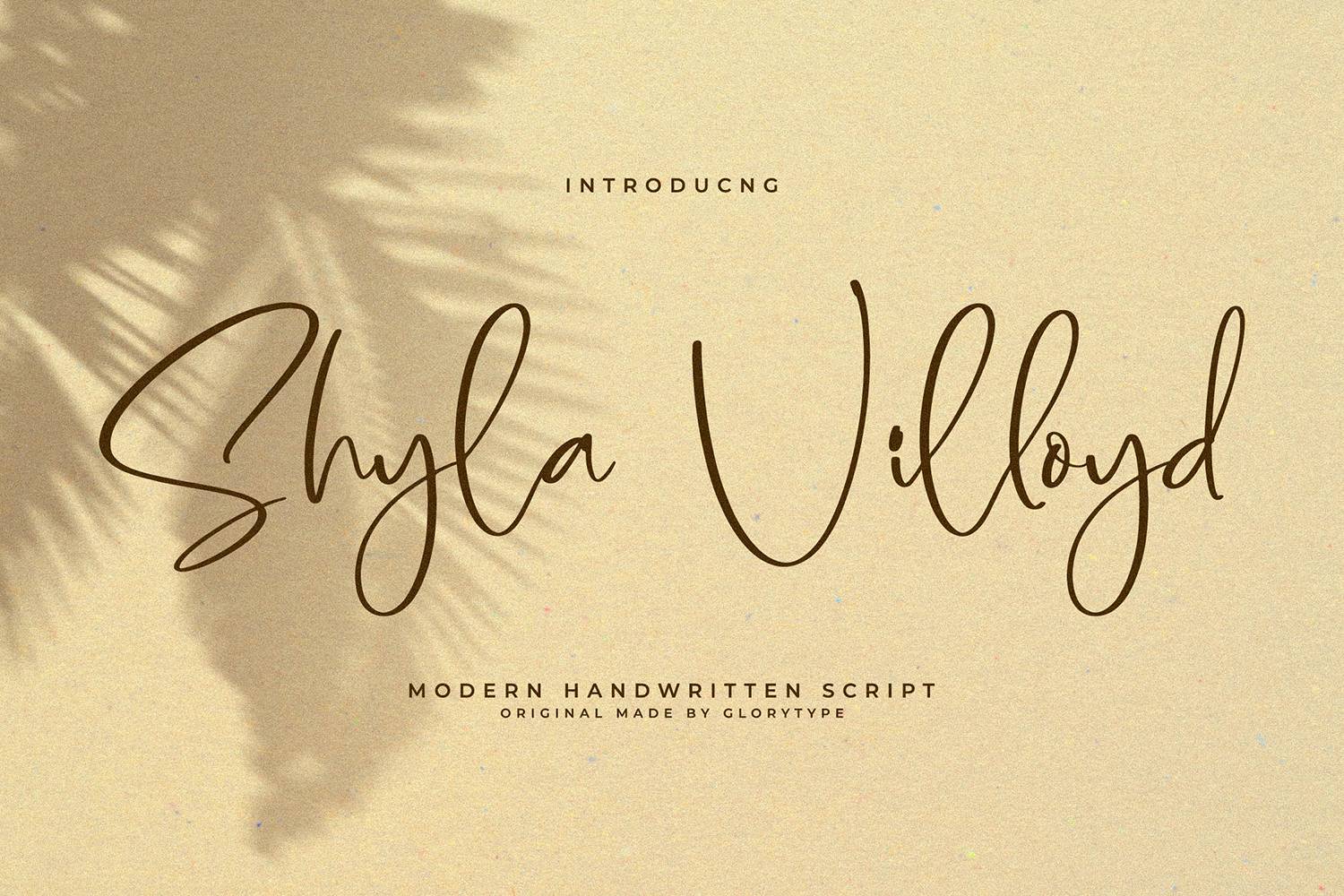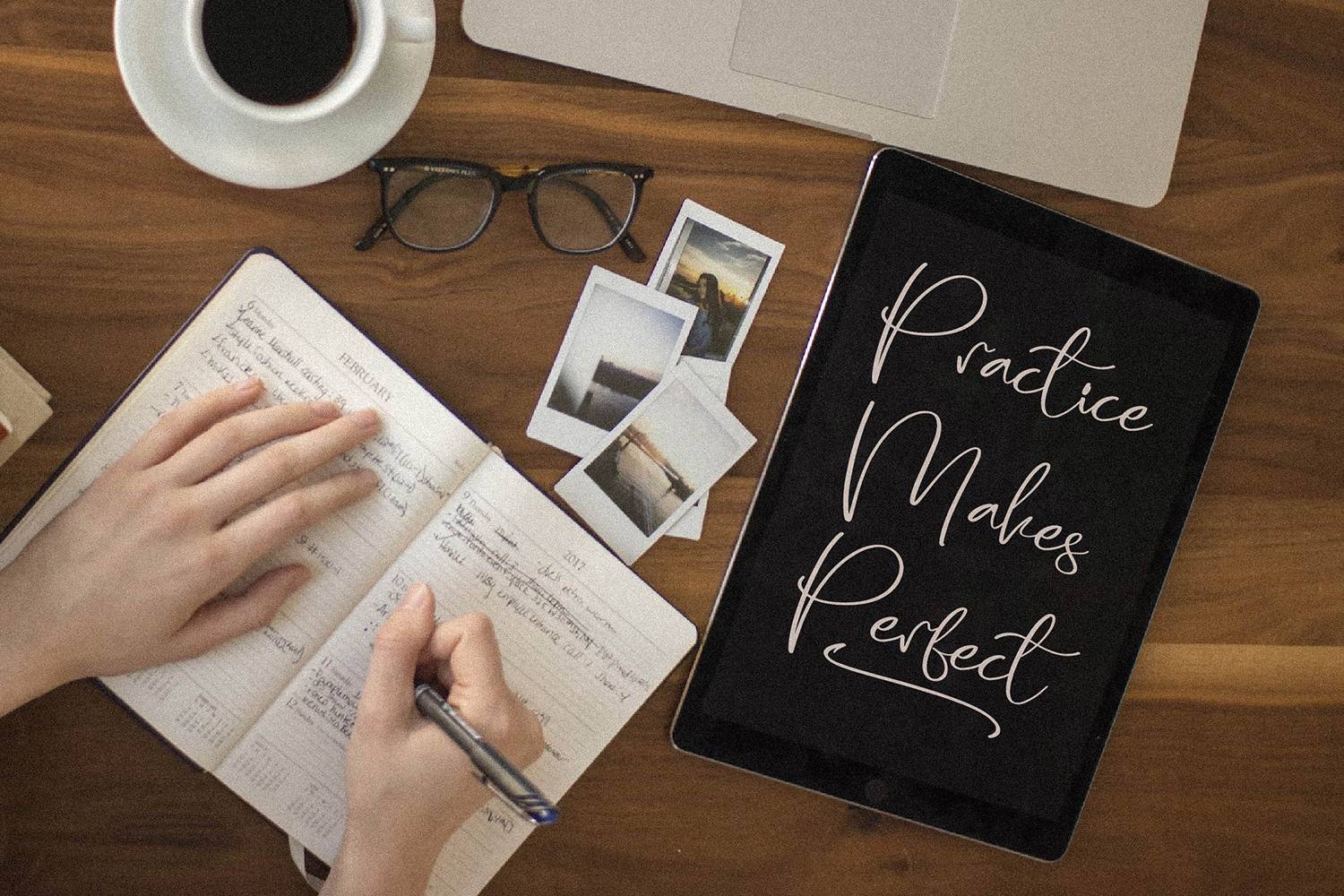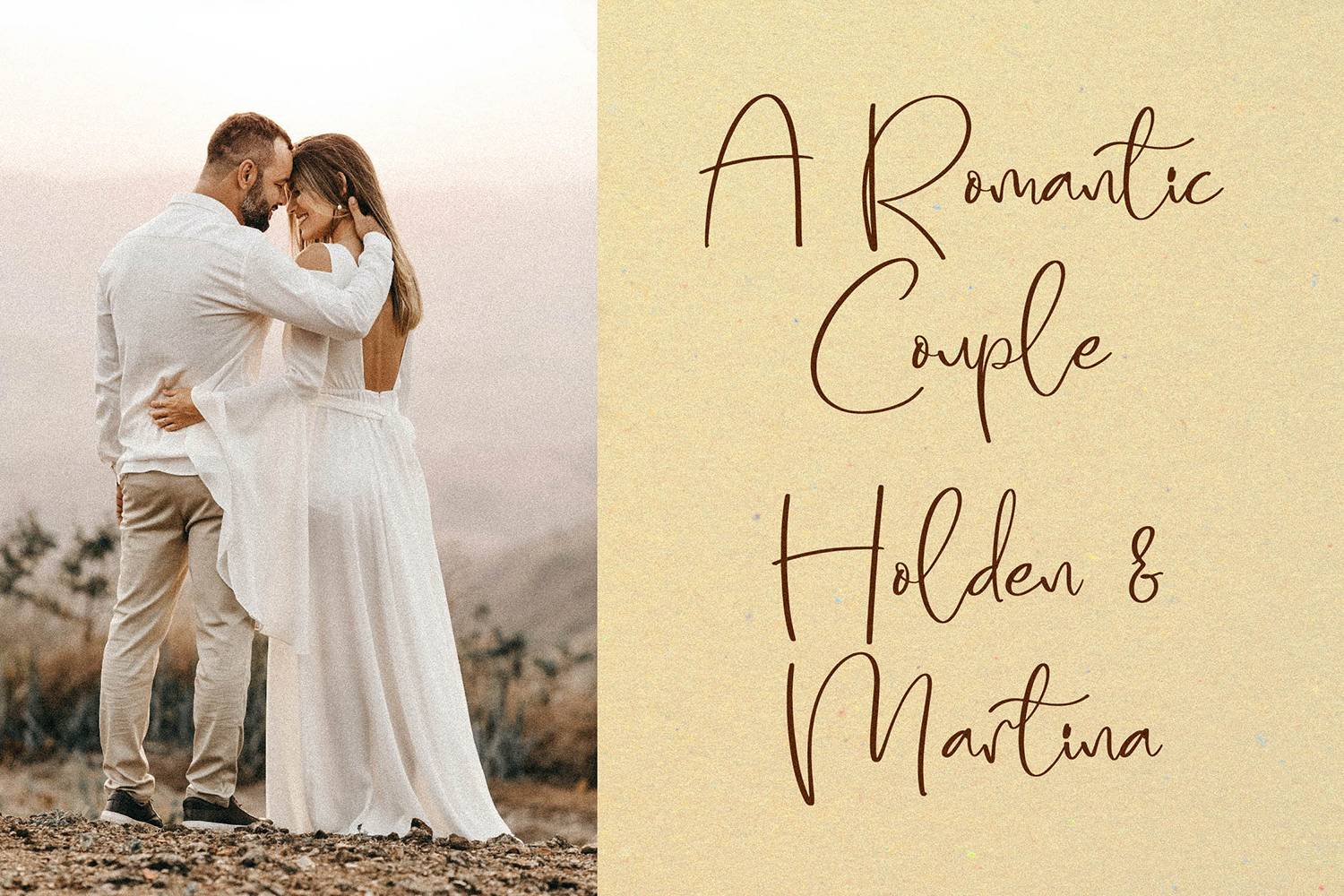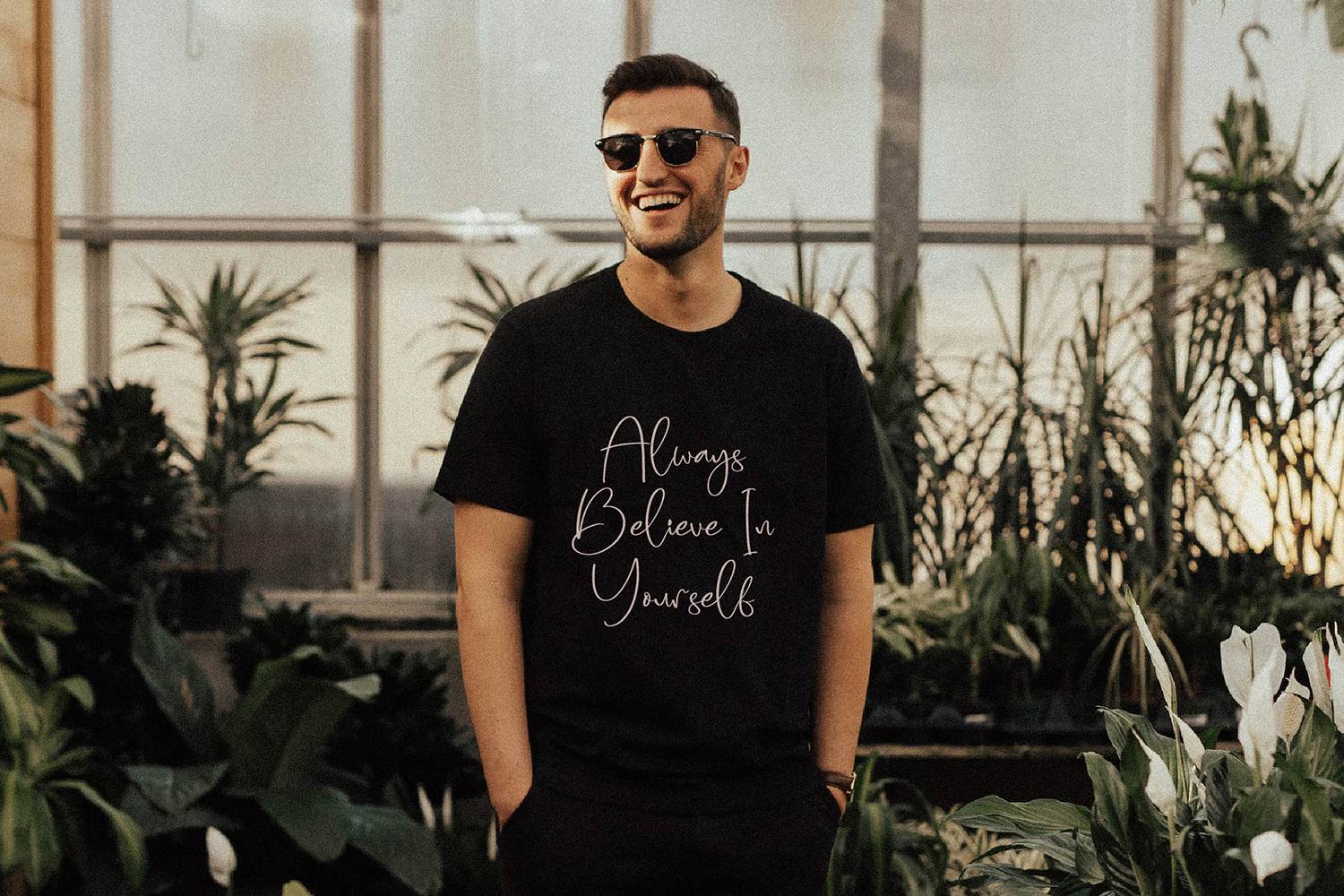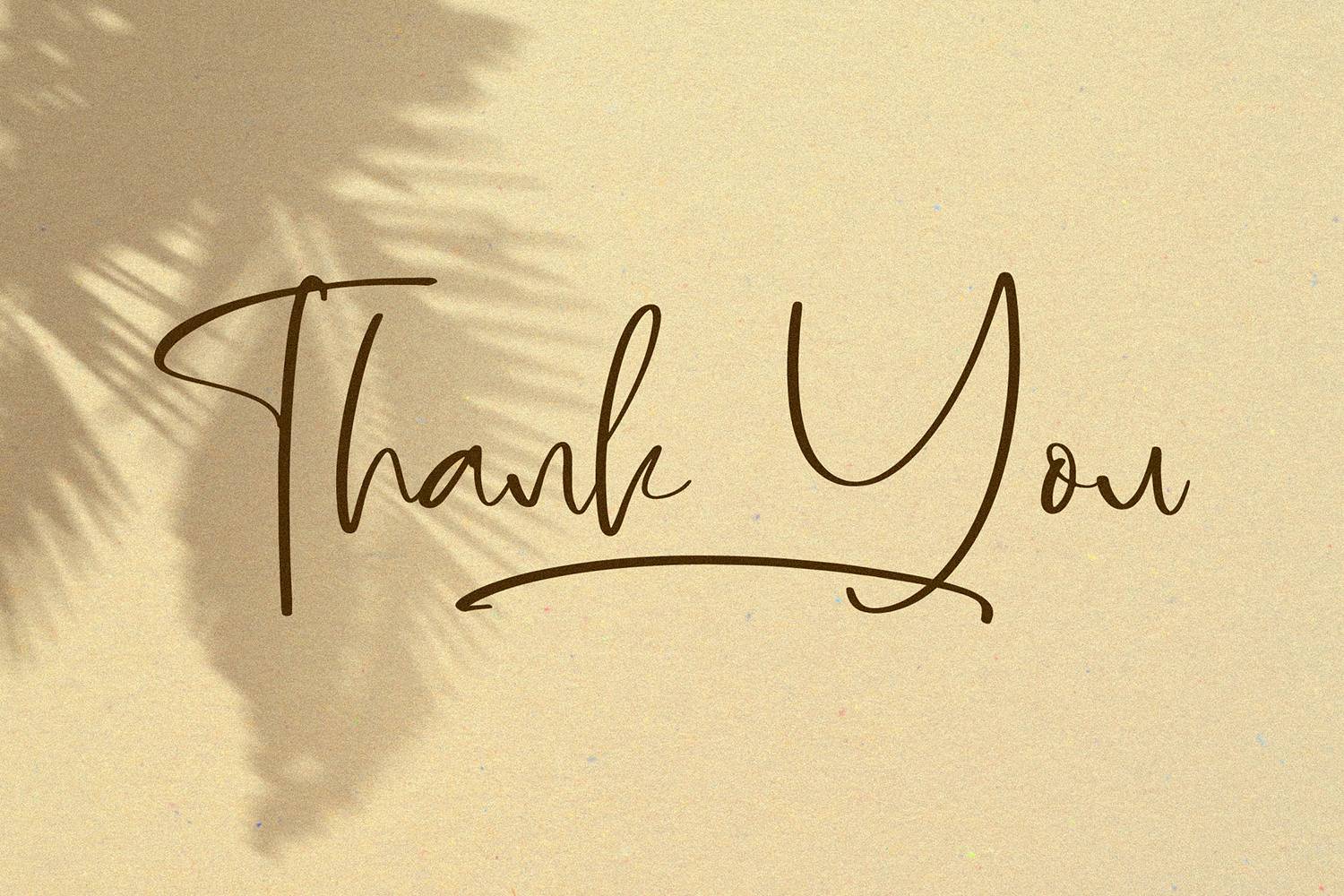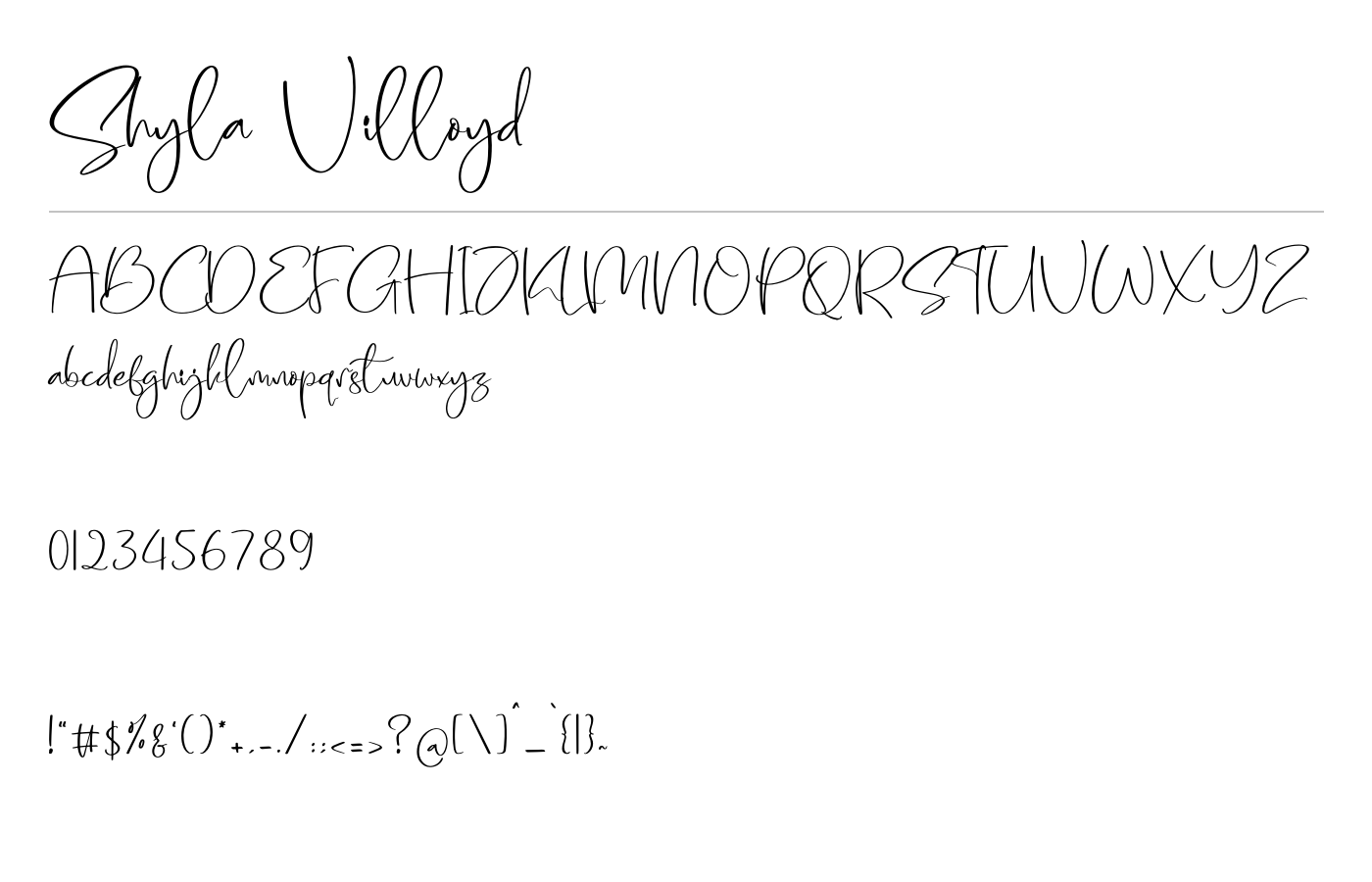
Shyla Villoyd is a delicate, handwritten script font characterized by its tall, narrow letterforms and fine, flowing strokes. Its elegant and airy style conveys a personal, sophisticated feel, making it ideal for invitations, branding, and creative projects that seek a modern yet intimate touch. This font works best in large sizes where its graceful details can shine, adding a stylish and refined personality to any design.
Shyla Villoyd Font
About Shyla Villoyd Font
| Font family | Shyla Villoyd Font |